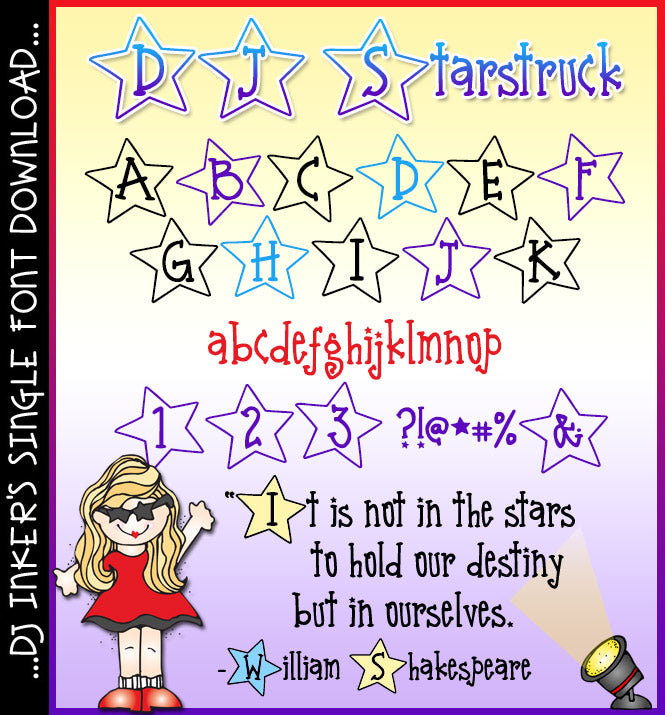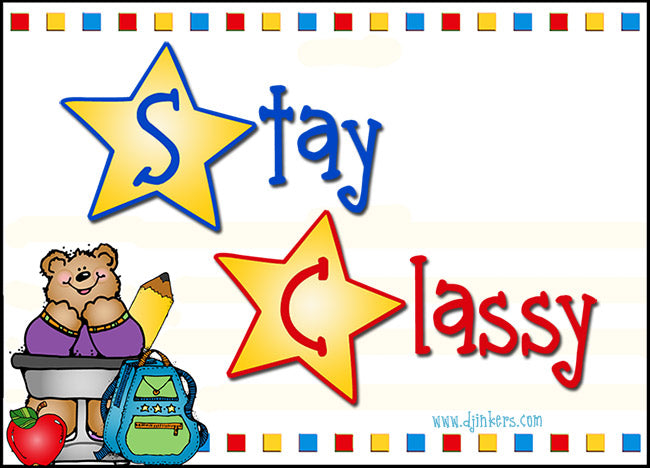
DJ Starstruck Font Download
Type-up a smile like a rock-star! Our spectacular 'DJ Starstruck' font will
add style & pizazz to your projects in no time. Get glamorous with
the names of Star Students, creating a program for a performance or sporting
event... or even on your astronomy studies. This font will 'glow brightest'
in larger sizes & bold, fun colors.